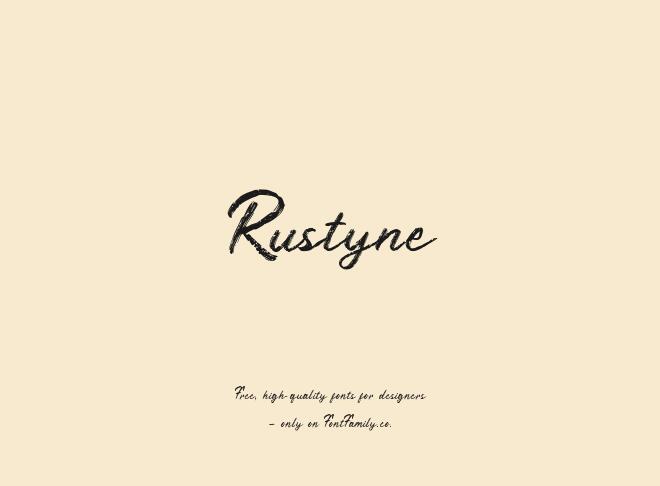
Rustyne Font
Rustyne Font is a beautifully rustic, vintage-style typeface that captures the spirit of retro design. Ideal for a wide range of applications, from logos and branding to signage and posters, this versatile font is a must-have for any designer's toolkit. Its unique, weathered look sets it apart from more traditional typefaces, making it a standout choice for projects that require a touch of vintage charm. Rustyne Font is reminiscent of old-school typefaces, but with a modern twist that keeps it relevant for today's design trends. Its beautifully crafted characters are full of personality and charm, ensuring that your designs will leave a lasting impression. Whether you're a professional designer or a hobbyist, Rustyne Font is a great choice for adding a rustic, vintage touch to your projects.